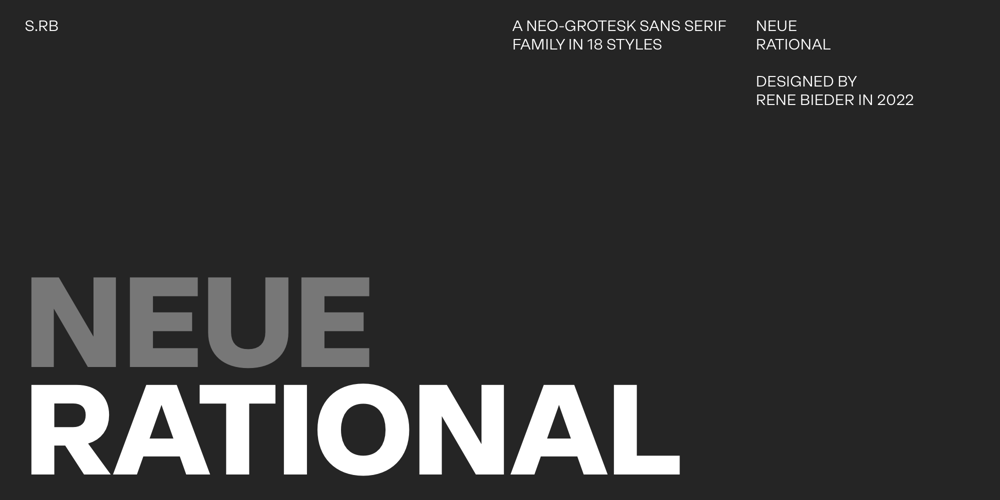
Neue Rational Standard Font Family was designed by René Bieder and published by René Bieder. Neue Rational Standard contains 18 styles and family package options. While the Neue Rational Standard family pays homage to its influential predecessors like Helvetica and Akzidenz, it proudly breaks free from the traditional modernist ideals of neutrality and functionalism. Rather than conforming to impersonal uniformity, it embodies the essence of a well-behaved mind, a trusted friend, and a steadfast long-term partner in design.Neue Rational goes beyond mere aesthetics; it represents the perfect fusion of human thought and machine precision.This synergy results in a typeface that not only showcases impeccable craftsmanship but also radiates a distinct personality and character, breathing life and vitality into each letterform.With its wide range of styles, spanning from Condensed to Normal, Mono and Semi Mono, Neue Rational is a versatile tool that strikes the delicate balance between artistic expression and systematic order, empowering designers to communicate with clarity, purpose, and a touch of individuality.